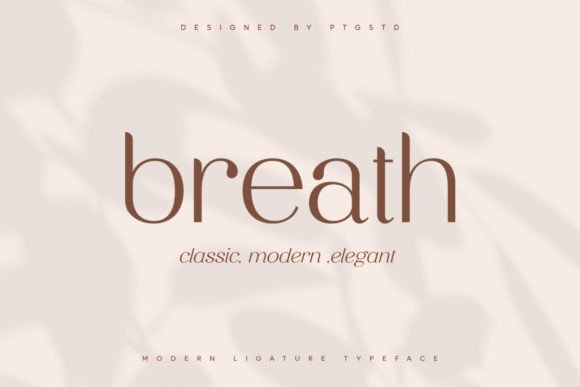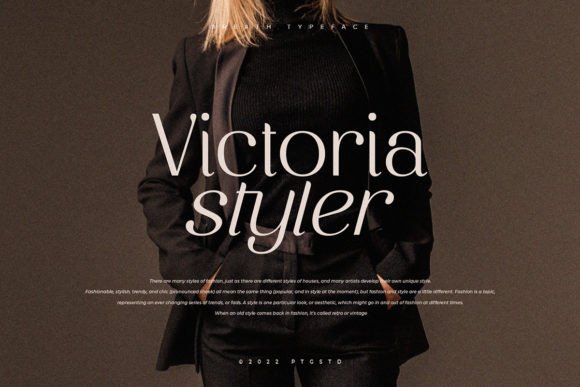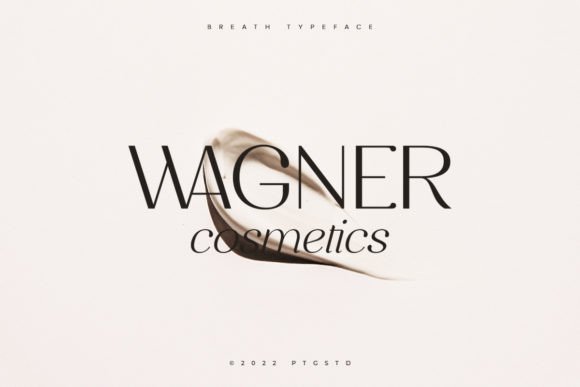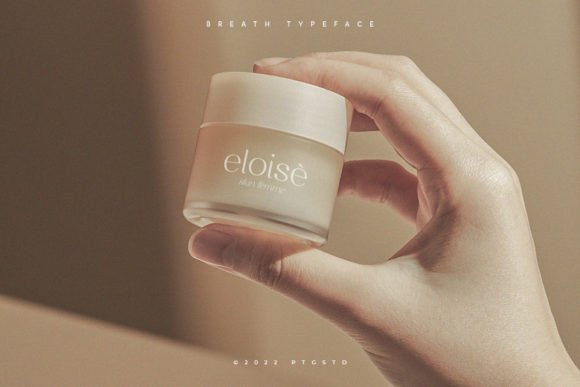
Breath Font: Elegant Serif Typography for Modern Branding
About the Breath Font
Make a bold statement with Breath Font, a powerful and memorable font. Breath is a stylish and incredibly elegant serif font. It is defined by smooth curves and is perfect for fashion branding or editorial designs. Use this font for your designs and explore its endless possibilities.
Breath’s elegant serifs make it ideal for high-end branding projects, fashion magazines, or luxury product packaging. Its refined curves also lend themselves well to short-form editorial designs, such as invitations or short-form marketing materials. However, avoid using Breath for body text or lengthy paragraphs; its delicate forms can become difficult to read at smaller sizes.
For a balanced pairing, consider using a clean sans-serif like Lato or Open Sans for body copy alongside Breath in headlines. Alternatively, a geometric sans-serif such as Futura can create a striking contrast, highlighting Breath’s fluidity. For a more luxurious feel, a delicate script font could complement Breath in secondary elements.
Breath exudes sophistication and timeless elegance. Its refined curves and graceful forms project a sense of calm confidence, making it suitable for brands that wish to communicate luxury, quality, and understated prestige.
Breath Font Usage Examples
Breath Font Example